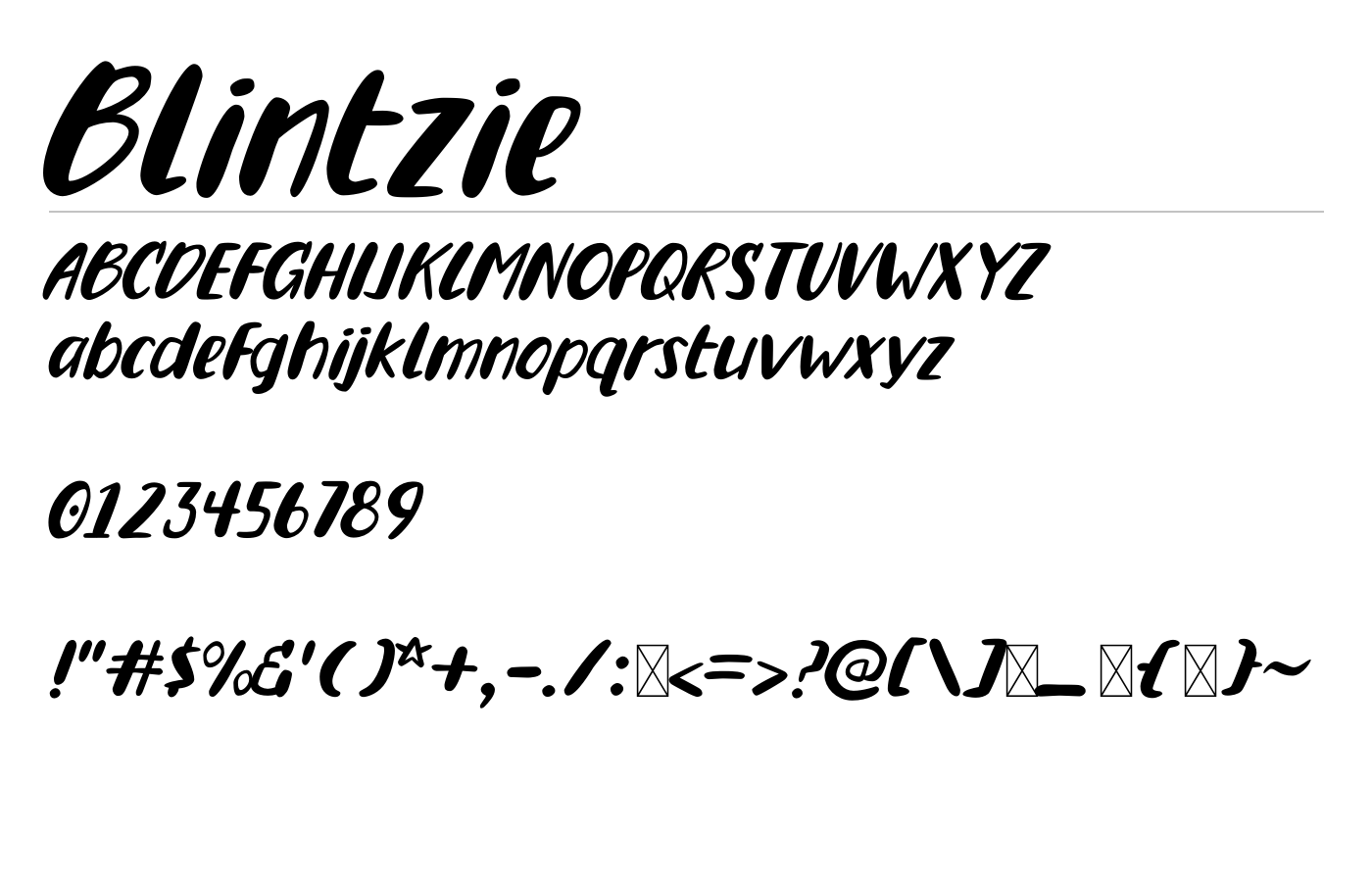
Blintzie is a lively and casual script-style font with a smooth, handwritten feel that adds a friendly and approachable touch to any design. With its moderate weight, slightly condensed width, and fluid letterforms, it works well for branding, packaging, and playful headlines where a personal, energetic vibe is desired. This font is ideal for projects that seek warmth and personality without compromising readability.
Blintzie Font
About Blintzie Font
| Font family | Blintzie Font |
| Designer | Ben Dunkle |